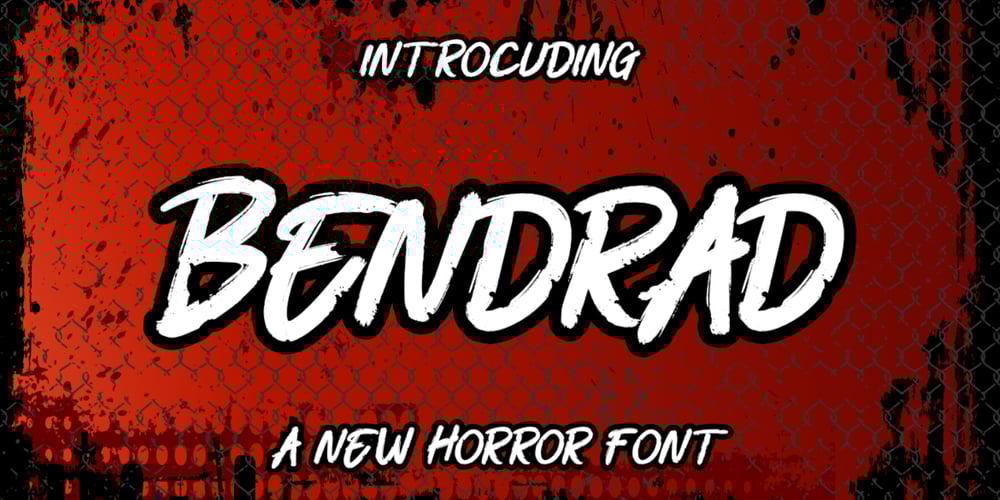
Bendrad Font Family was designed by Bayu Aji Fais Mursid and published by Bayuktx. Bendrad contains 1 styles and family package options. Hello,Thank you for visiting my products, we will give you the best choice.Bendrad a New Horror Font, This font is made with a high premium quality level which you can use as flyers, quotes, posters, banners, packaging, merchandise, logotypes and much more.FEATURES :* Uppercase* Lowercase* Number* Punctuation* Multilingual* PUA Encode* OpentypeFILES INCLUDED :* BendradThank you